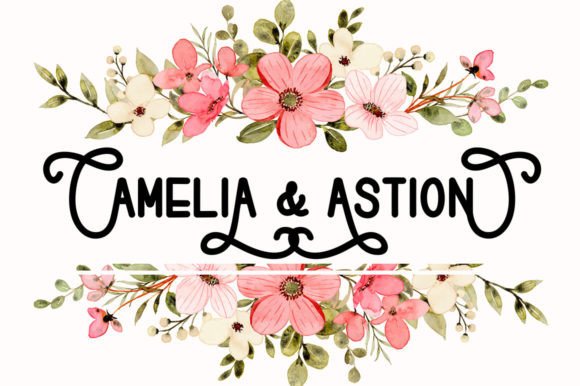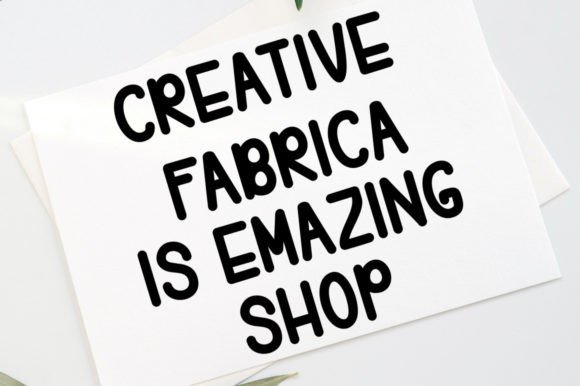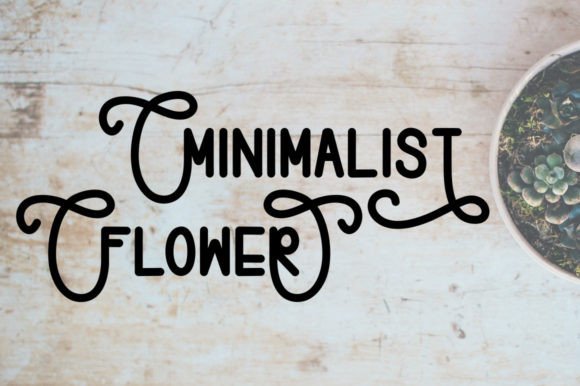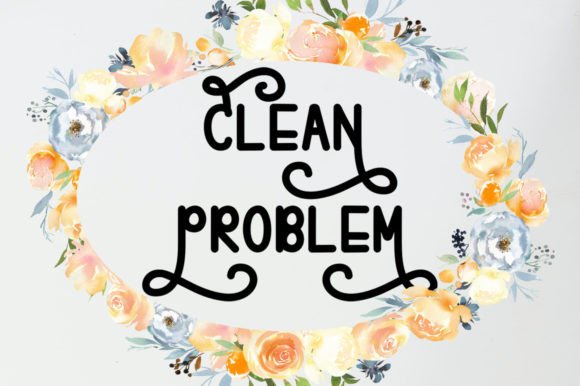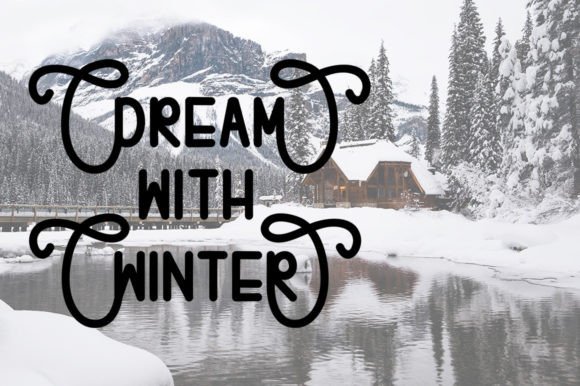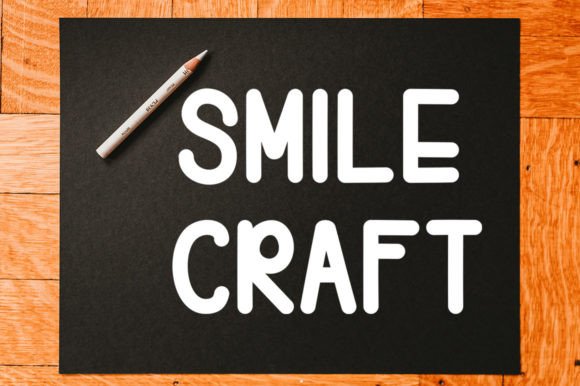
Introducing Farmhouse Font: The Perfect Blend of Smooth and Natural Handwritten Style
Are you a designer or crafter looking for a unique and versatile font to elevate your crafty projects? Look no further than Farmhouse Font, a smooth and natural handwritten font that is sure to capture your heart. With its refined yet friendly accent, this font is perfect for creating stunning projects that require a personal touch.
The Unique Charm of Farmhouse Font
Farmhouse Font boasts a distinct charm that sets it apart from other fonts. Its smooth and natural handwritten style gives it a warm and inviting feel, making it perfect for a wide range of applications. Whether you’re creating invitations, greeting cards, or social media graphics, Farmhouse Font is sure to add a touch of elegance and sophistication.
One of the standout features of Farmhouse Font is its unique blend of refinement and friendliness. It’s a font that feels both luxurious and approachable, making it perfect for designers and crafters who want to create projects that are both stylish and relatable.
Farmhouse Font is PUA (Private Use Area) encoded, which means that you can access all the glyphs and ligatures with ease. This encoding allows you to unlock the full potential of the font, giving you access to a wide range of characters and swashes that can be used to add an extra layer of creativity to your projects.
With PUA encoding, you can easily access the font’s built-in features using your preferred design software. This means that you can spend less time trying to figure out how to use the font and more time focusing on the creative aspects of your project.
Perfect for Crafty Projects
Farmhouse Font is specifically designed with crafty projects in mind. Whether you’re a seasoned crafter or just starting out, this font is perfect for creating a wide range of projects, from handmade cards and invitations to DIY crafts and decorations.
The font’s smooth and natural handwritten style makes it perfect for projects that require a personal touch. It’s a font that feels like it was written with love and care, making it perfect for creating handmade projects that are truly special.
Why Designers and Crafters Love Farmhouse Font
So why do designers and crafters love Farmhouse Font? Here are just a few reasons:
- Unique and versatile: Farmhouse Font is a one-of-a-kind font that can be used for a wide range of projects.
- Smooth and natural: The font’s smooth and natural handwritten style gives it a warm and inviting feel.
- PUA encoded: Easy access to all glyphs and ligatures means you can unlock the full potential of the font.
- Perfect for crafty projects: Farmhouse Font is specifically designed with handmade projects in mind.
Get Creative with Farmhouse Font
Ready to get creative with Farmhouse Font? Here are a few ideas to get you started:
- Create handmade cards and invitations for special occasions.
- Design social media graphics and blog posts that stand out.
- Make DIY crafts and decorations for your home.
- Develop a unique brand identity for your business.